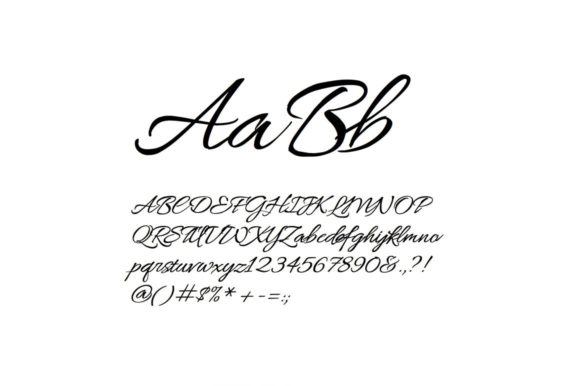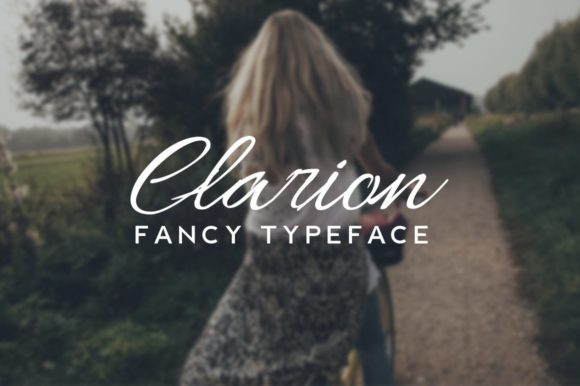
Introducing Clarion Font: A Delicate, Vintage-Styled Handwritten Font
Are you a designer or crafter looking for a unique and elegant font to add a touch of sophistication to your creative projects? Look no further than Clarion Font, a beautiful, delicate, and vintage-styled handwritten font that’s sure to make your designs come alive.
What is Clarion Font?
Clarion Font is a stunning, flowing handwritten font that’s perfect for a wide range of design applications. Its delicate and vintage-styled characters are carefully crafted to provide a beautiful and well-balanced aesthetic that’s sure to capture the attention of your audience.
With its elegant and refined appearance, Clarion Font is ideal for designers and crafters who want to add a touch of sophistication and elegance to their projects. Whether you’re working on a logo, branding, packaging, or any other design project, Clarion Font is the perfect choice.
Key Features of Clarion Font
So, what makes Clarion Font so special? Here are some of its key features:
- Delicate and Vintage-Styled: Clarion Font features delicate and vintage-styled characters that are perfect for creating elegant and refined designs.
- Flowing Handwritten: The font has a beautiful, flowing handwritten style that’s perfect for creating a sense of movement and fluidity in your designs.
- Well-Balanced Characters: Each character in Clarion Font is carefully crafted to provide a well-balanced and harmonious aesthetic that’s pleasing to the eye.
- Versatile: Clarion Font is versatile and can be used for a wide range of design applications, from logos and branding to packaging and more.
How to Use Clarion Font in Your Designs
Clarion Font is easy to use and can be incorporated into your designs in a variety of ways. Here are some ideas to get you started:
- Logos and Branding: Use Clarion Font to create a stunning logo or brand identity that’s sure to make your business stand out.
- Packaging: Add a touch of elegance and sophistication to your packaging designs with Clarion Font.
- Stationery: Use Clarion Font to create beautiful stationery, including business cards, letterheads, and more.
- Digital Designs: Clarion Font can also be used for digital designs, such as social media graphics, website headers, and more.
Why Choose Clarion Font?
So, why should you choose Clarion Font for your design projects? Here are just a few reasons:
- Unique and Elegant: Clarion Font is a unique and elegant font that’s sure to make your designs stand out from the crowd.
- High-Quality: The font is of high-quality and is carefully crafted to provide a beautiful and well-balanced aesthetic.
- Versatile: Clarion Font is versatile and can be used for a wide range of design applications.
- Easy to Use: The font is easy to use and can be incorporated into your designs quickly and easily.
In conclusion, Clarion Font is a beautiful, delicate, and vintage-styled handwritten font that’s perfect for designers and crafters who want to add a touch of elegance and sophistication to their creative projects. With its well-balanced characters, flowing handwritten style, and versatile design, Clarion Font is sure to make your designs come alive. So why wait? Add Clarion Font to your design toolkit today and start creating stunning designs that are sure to impress.